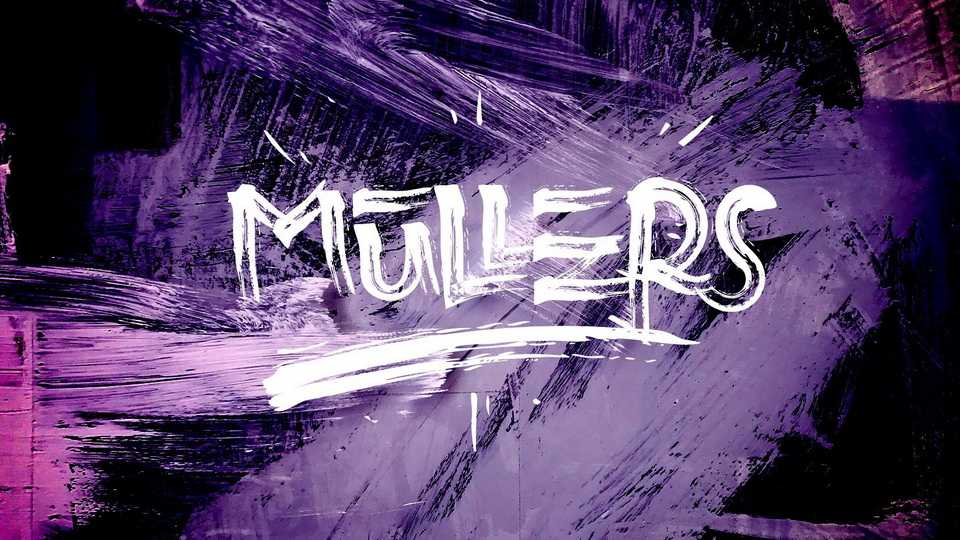
Download Mullers font, a hand painted brush typeface crafted with care and imagination. With extra attention to quick strokes and sharp detail, the Mullers Brush is ideal for logos, apparel, quotes, product packaging, or anything else that needs a typography turbo-boost.
Designer: Faisol Nur Wibowo